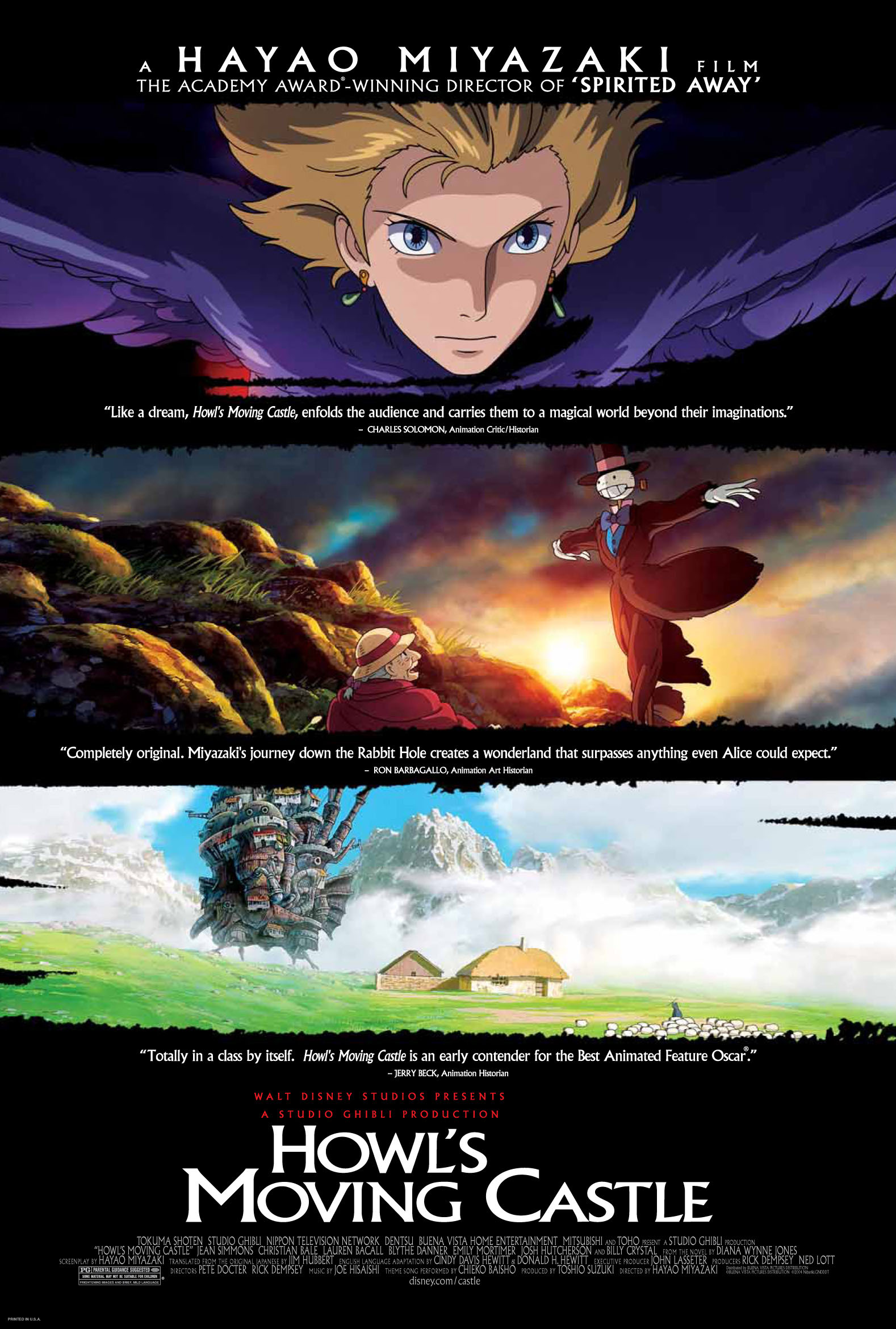
Howl's Moving Castle Font
AnimationHowl’s Moving Castle is a 2004 animated film by Studio Ghibli, based on the novel of the same name by Diana Wynne Jones. The movie follows a young woman named Sophie who is cursed by a witch and transforms into an old woman and her adventures with the wizard Howl and his moving castle.
The "Howl’s Moving Castle" title on the English version of the poster uses the Albertus font. Berthold Wolpe designed this glyphic, serif typeface for the Monotype Corporation type foundry during the 1932-1940 period. More details about Albertus font can be found here.